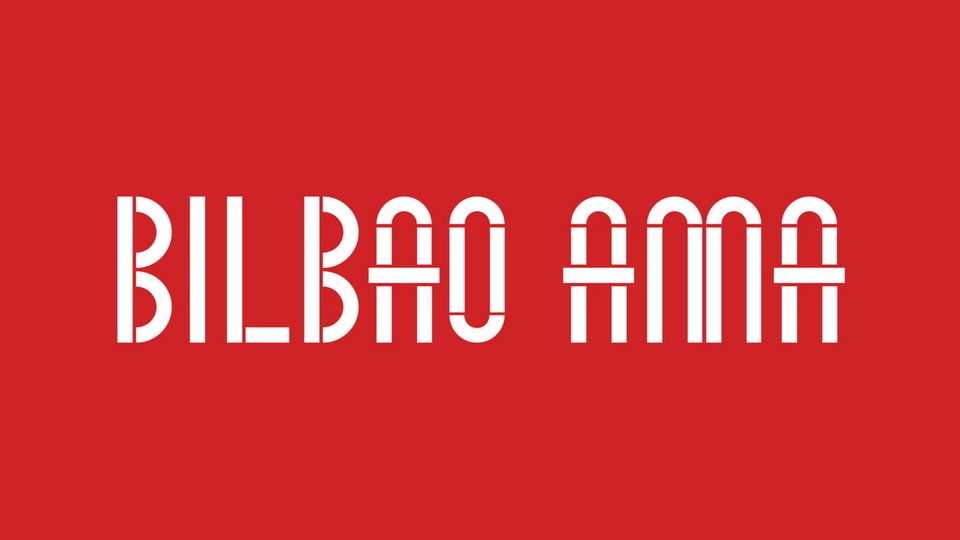
Download Bilbao AMA font, a lovely and rather severe stencil typeface consisting of thin geometrical rectangles and gentle 90 degree curves.
Designer: Justseeds Open Type Project